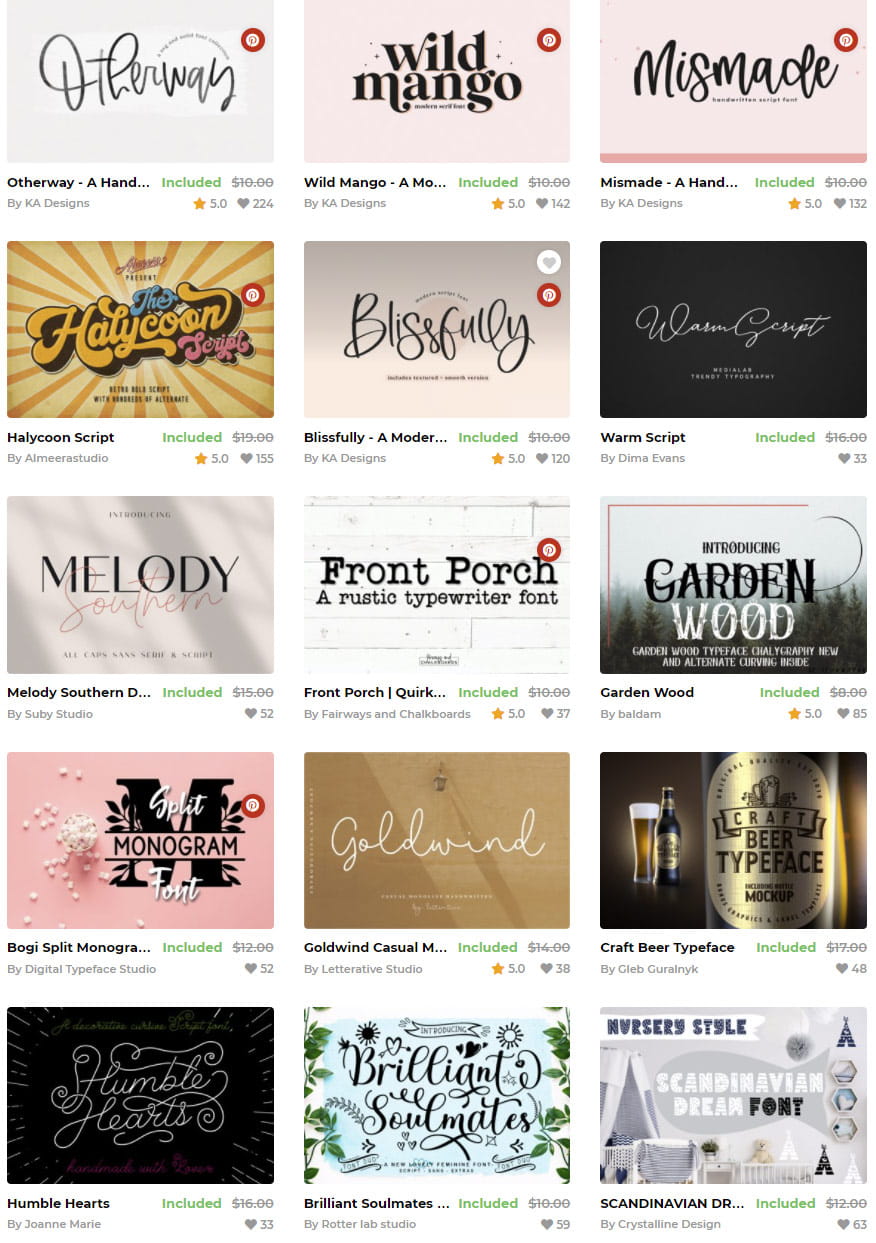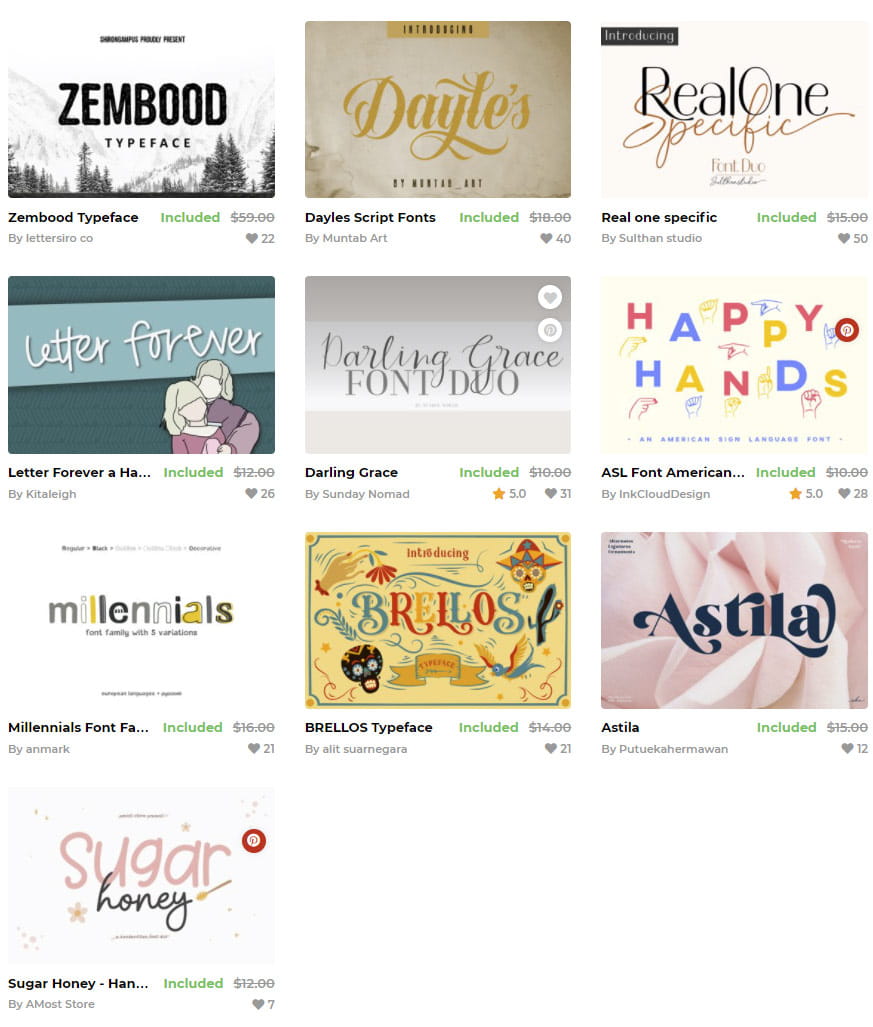
The Brilliant Font Bundle is back with The Brilliant Font Bundle Volume 8! Our graphic designers have lovingly crafted the bundle to suit your design needs. It’s the same great discounted price with a whole bunch of new fonts perfect for any of your creative projects. Available for a great price, but only for a limited time, you need to get this bundle before it’s too late!
If you’re looking for the ideal vintage retro fonts for your personal and commercial use projects, you’ll love the Halycoon Script from Almeerastudio. Consider this font for your logo design, t-shirt designs, and other branding projects.
Wanting a more feminine font or some of the best handwritten fonts? Well, look no further. This bundle has excellent options, including the Goldwind Casual Monoline Handwritten Font by Letterative Studio, Blissfully – A Modern Script Font by KA Designs, and Warm Script by MediaLab.
Are you looking for a font with tails? You’ll love the Brilliant Soulmates Font Duo from Rotter lab studio and the Humble Hearts font from Joanne Marie. These cursive elegant fonts are perfect for wedding invitations and other DIY wedding decor.
Suppose you’re looking for the best fonts pairing. In that case, you’ll enjoy the Melody Southern Duo – Luxury Font Duo by Suby Studio, the Real One Specific by Sulthan studio, or the Darling Grace Font Duo by Sunday Nomad. You never know when your Cricut SVG or Silhouette Cameo SVG needs the ideal script font pairing for your cut files.
Are you looking for the perfect nursery font or baby font for your nursery crafts? If so, you will love SCANDINAVIAN DREAM FONT by Crystalline Design. Or maybe you are looking for the perfect monogram font SVG. The Bogi Split Monogram Font from Digital Typeface Studio would make a great baby bedroom name sign and more!